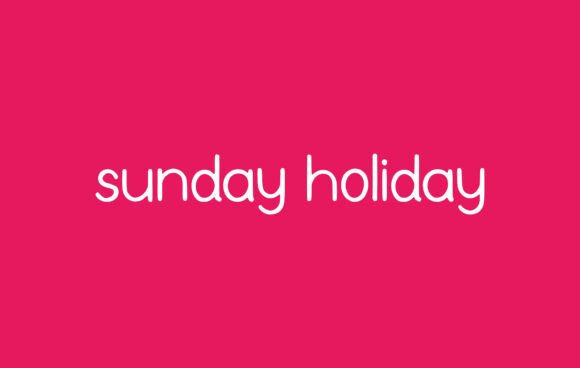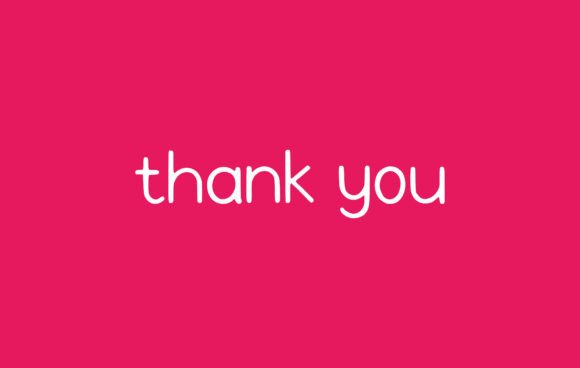
Introducing Busy Mama Font: The Perfect Handwritten Font for Creative Projects
Are you a designer, crafter, or DIY enthusiast looking for a unique and romantic font to elevate your creative projects? Look no further than Busy Mama Font! This authentic handwritten font is expertly designed to add a touch of elegance and sophistication to any design. With its legible and versatile style, Busy Mama Font is perfect for a wide range of applications, from magazine headlines and social media graphics to wedding invitations, branding, and more.
What Makes Busy Mama Font So Special?
Busy Mama Font is more than just a font – it’s a design statement. With its romantic and whimsical touch, this font is sure to capture the attention of your audience and leave a lasting impression. Here are just a few reasons why Busy Mama Font stands out:
- Authentic Handwritten Style: Busy Mama Font is carefully crafted to mimic the look and feel of handwritten text, giving your designs a personal and human touch.
- Legible and Versatile: This font is designed to be easy to read, making it perfect for both title and body text. Its versatility means you can use it for a wide range of projects, from large-scale designs like billboards and magazine covers to smaller applications like social media graphics and greeting cards.
- Romantic and Whimsical: Busy Mama Font has a unique romantic quality that adds a touch of elegance and sophistication to any design. Its whimsical feel makes it perfect for projects that require a playful and creative approach.
Busy Mama Font is a dream come true for designers and crafters who want to add a personal touch to their projects. Here are just a few ways you can use Busy Mama Font to take your designs to the next level:
- Magazine Headlines and Articles: Use Busy Mama Font to create eye-catching headlines and add a touch of personality to your magazine articles.
- Social Media Graphics: Add a romantic and whimsical touch to your social media graphics, including Facebook posts, Instagram stories, and Twitter headers.
- Wedding Invitations and Stationery: Busy Mama Font is perfect for wedding invitations, thank-you cards, and other stationery. Its elegant and sophisticated style makes it ideal for formal events.
- Branding and Packaging: Use Busy Mama Font to create a unique and memorable brand identity. Its versatility makes it perfect for packaging, labels, and other marketing materials.
Tips for Using Busy Mama Font
To get the most out of Busy Mama Font, here are a few tips to keep in mind:
- Use it Sparingly: While Busy Mama Font is beautiful and eye-catching, it’s best to use it sparingly. Use it for headlines or titles, and pair it with a simpler font for body text.
- Experiment with Colors: Busy Mama Font looks great in a variety of colors. Experiment with different colors and combinations to find the perfect look for your design.
- Pair it with Other Fonts: Busy Mama Font pairs well with a variety of other fonts. Experiment with different combinations to find the perfect look for your design.
Busy Mama Font is a unique and romantic handwritten font that’s perfect for designers, crafters, and DIY enthusiasts. With its legible and versatile style, it’s ideal for a wide range of applications, from magazine headlines and social media graphics to wedding invitations and branding. Whether you’re looking to add a touch of elegance and sophistication to your designs or simply want to create something truly special, Busy Mama Font is the perfect choice.